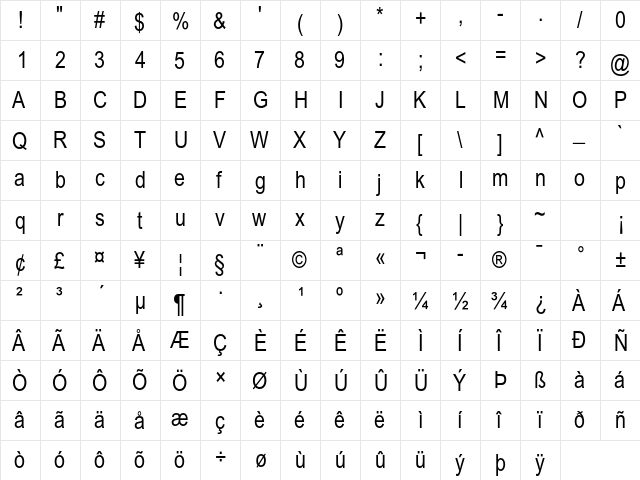
Arial Narrow MT Std Regular
Design Context for Arial Narrow MT Std Typeface
Arial Narrow MT Std offers clean, dependable letterforms without strong stylistic allegiance, making it a practical choice for designers who need flexibility. Its narrow stance lets it pack a punch even in space-constrained designs.